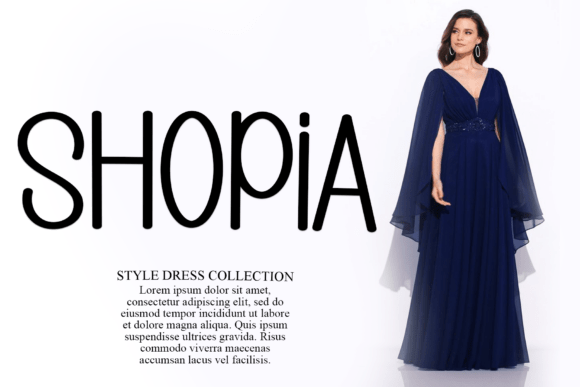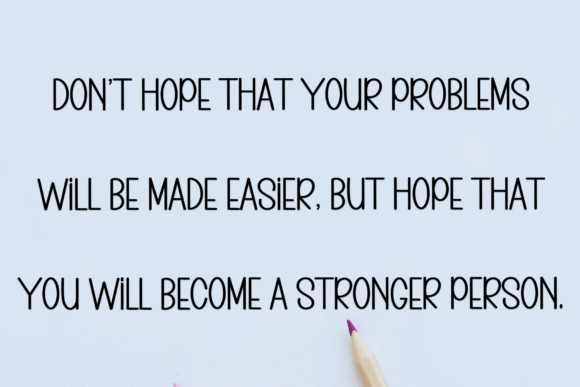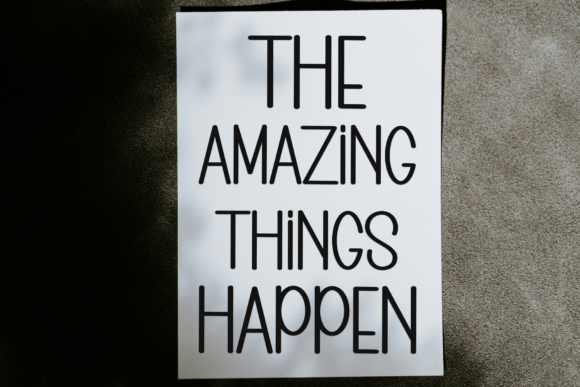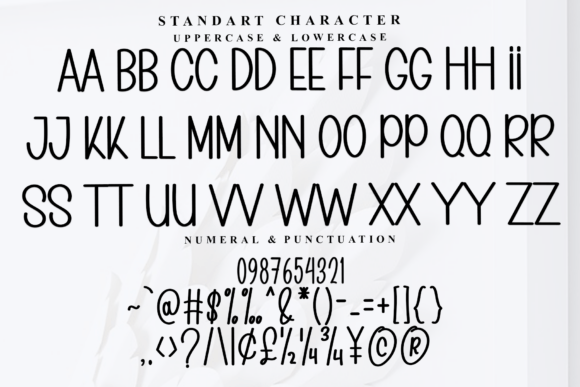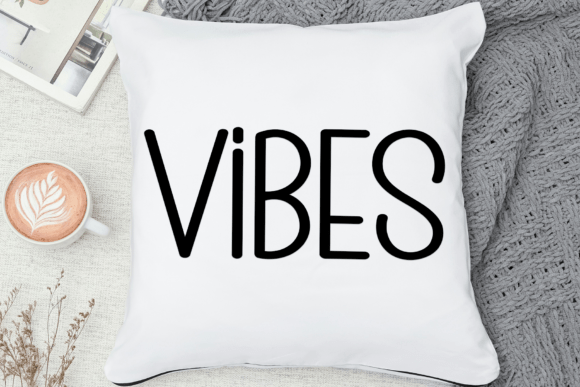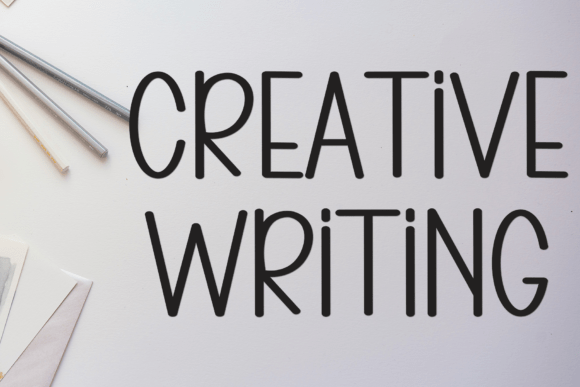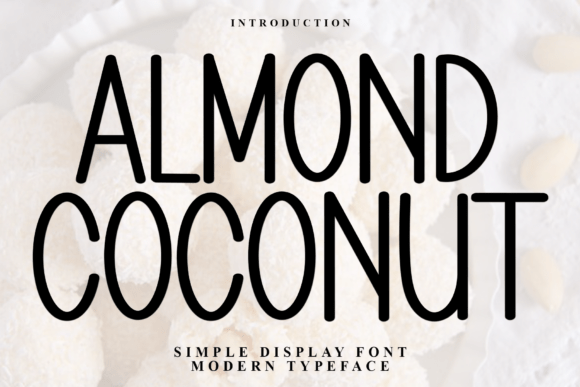
Introducing Almond Coconut Font: The Perfect Blend of Casual and Creative
Are you tired of using the same old fonts for your personal projects, invitations, and social media graphics? Look no further than Almond Coconut Font, a charming and creative typeface that exudes warmth and friendliness. With its round, playful strokes and hand-drawn aesthetic, this font is sure to add a fun and unique touch to any design.
The Characteristics of Almond Coconut Font
Almond Coconut Font is a casual and creative font that is perfect for designers and crafters who want to add a personal touch to their work. Its round, playful strokes create a relaxed and approachable feel, making it ideal for projects that require a friendly and approachable tone. The font’s charming, hand-drawn aesthetic adds a unique and fun touch to any design, making it perfect for:
- Personal projects, such as photo albums and scrapbooking
- Invitations, such as birthday and wedding invitations
- Social media graphics, such as Facebook and Instagram posts
- Blogging and website design
What Makes Almond Coconut Font Special?
The Benefits of Using Almond Coconut Font
Using Almond Coconut Font in your designs can have numerous benefits, including:
- Adding a personal touch: With its hand-drawn aesthetic and playful strokes, Almond Coconut Font can add a unique and personal touch to your designs.
- Creating a friendly tone: The font’s relaxed and approachable feel makes it perfect for creating a friendly and approachable tone in your designs.
- Increasing engagement: The fun and unique aesthetic of Almond Coconut Font can help increase engagement and grab the attention of your audience.
- Standing out from the crowd: With its charming and creative design, Almond Coconut Font can help your designs stand out from the crowd and make a lasting impression.
How to Use Almond Coconut Font in Your Designs
Using Almond Coconut Font in your designs is easy and straightforward. Here are a few tips to get you started:
- Pair it with other fonts: Almond Coconut Font pairs well with other fonts, such as sans-serif and script fonts. Experiment with different combinations to find the perfect look for your design.
- Use it in headings and titles: The font’s playful strokes and hand-drawn aesthetic make it perfect for headings and titles.
- Add a personal touch: Use Almond Coconut Font to add a personal touch to your designs, such as in photo albums and scrapbooking.
Almond Coconut Font is a casual and creative typeface that is perfect for designers and crafters who want to add a personal touch to their work. With its round, playful strokes and hand-drawn aesthetic, this font is sure to add a fun and unique touch to any design. Whether you’re working on a personal project, invitation, or social media graphic, Almond Coconut Font is a great choice. So why not give it a try and see the difference it can make in your designs?